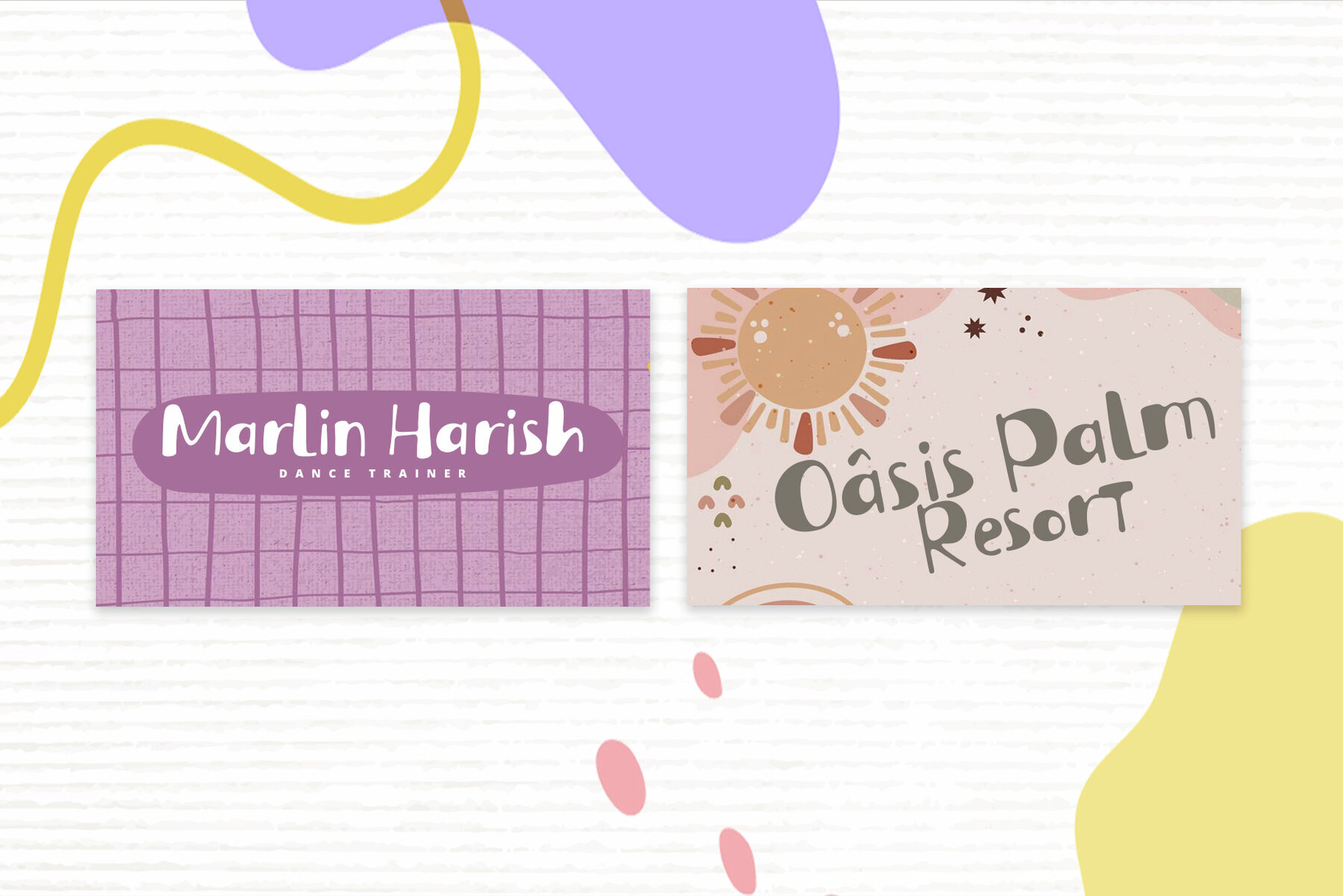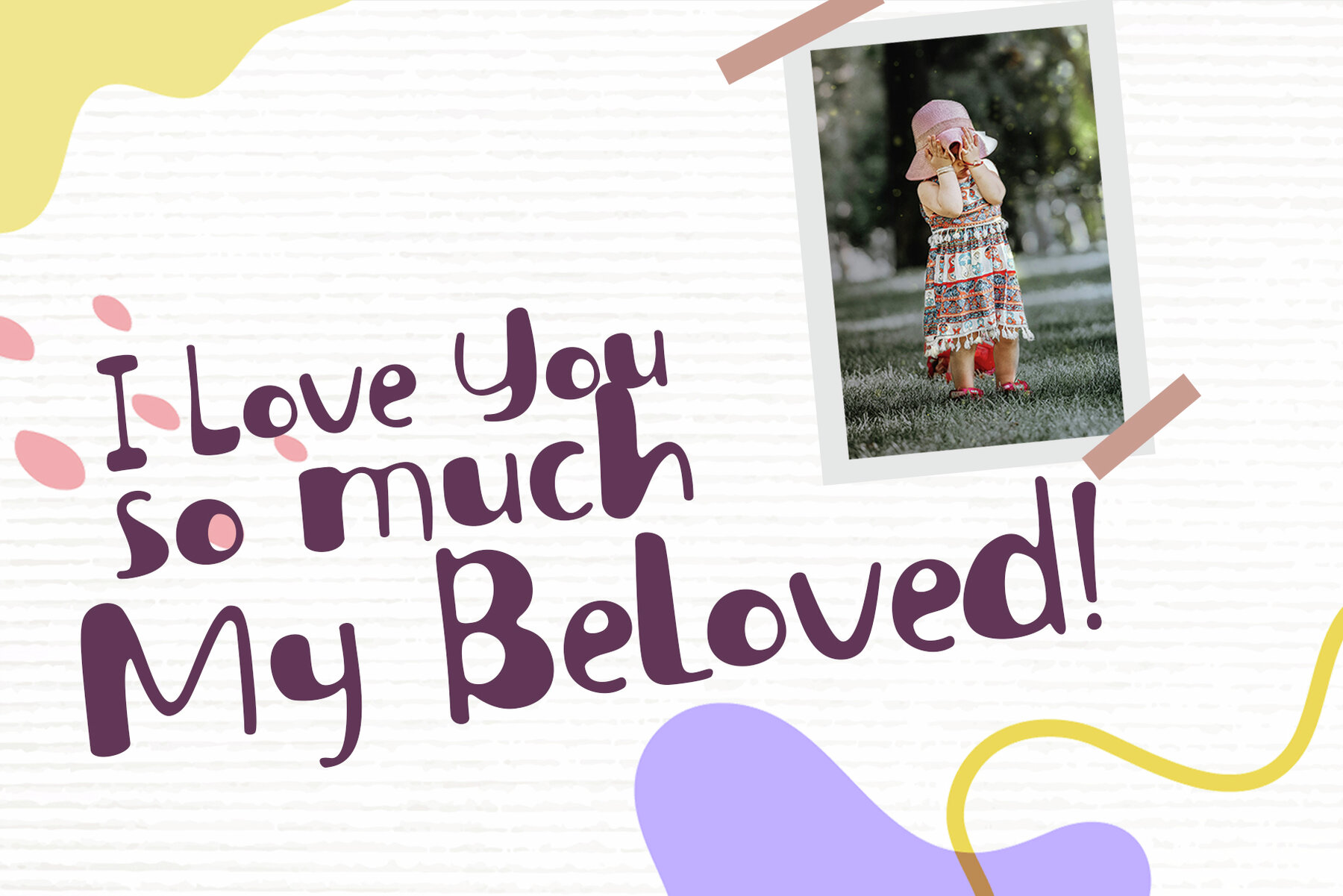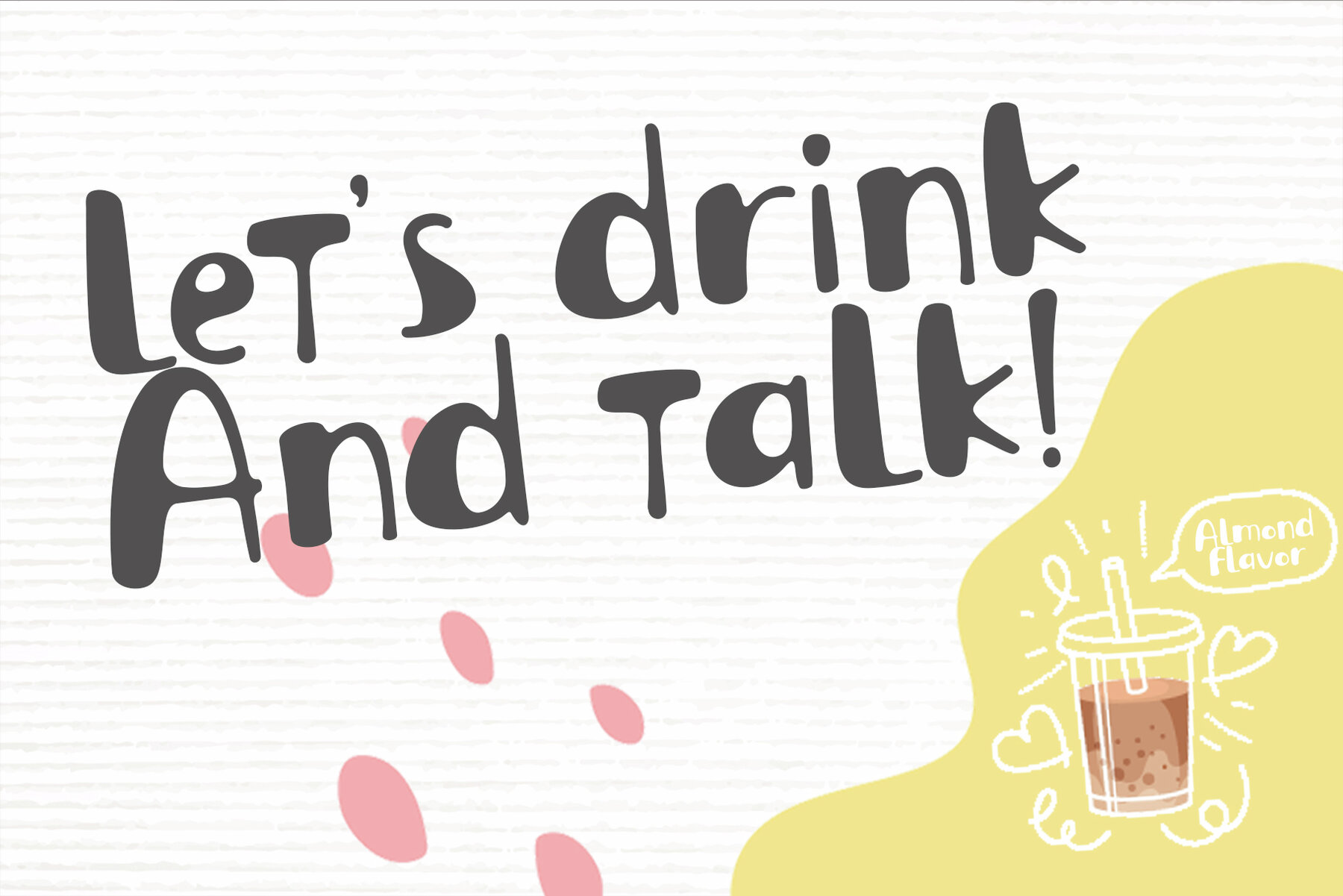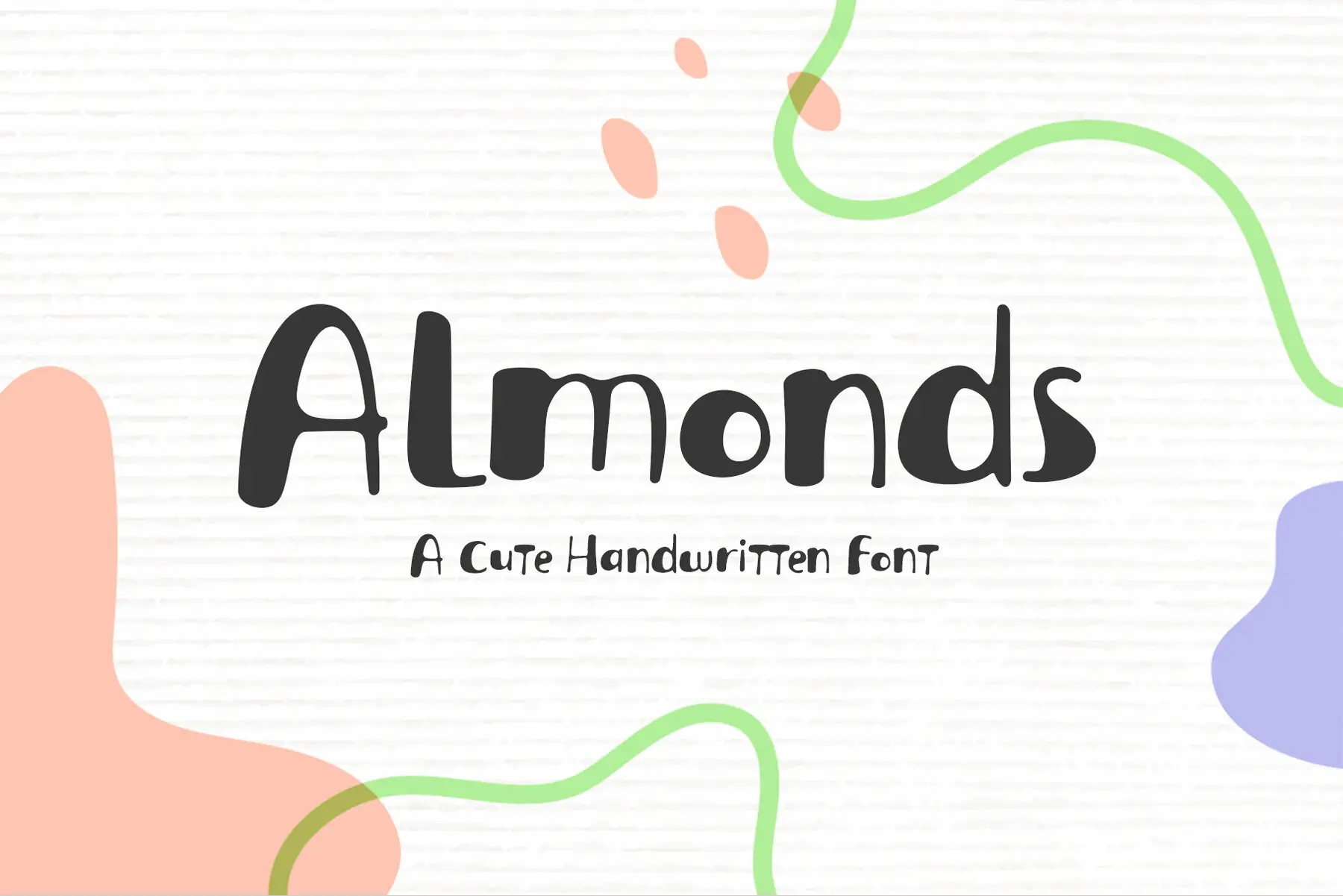
Almonds Font
Almonds
Discover the enchantment of Almonds, a delightful and contemporary display font. Crafted with an eye for design, this font brings a sense of joy with its uniquely rounded, natural, and whimsical characters. Perfect for enhancing your creative projects, Almonds offers a playful and stylish touch that makes every design stand out.Charming Modern Display Font
Versatile Design Applications